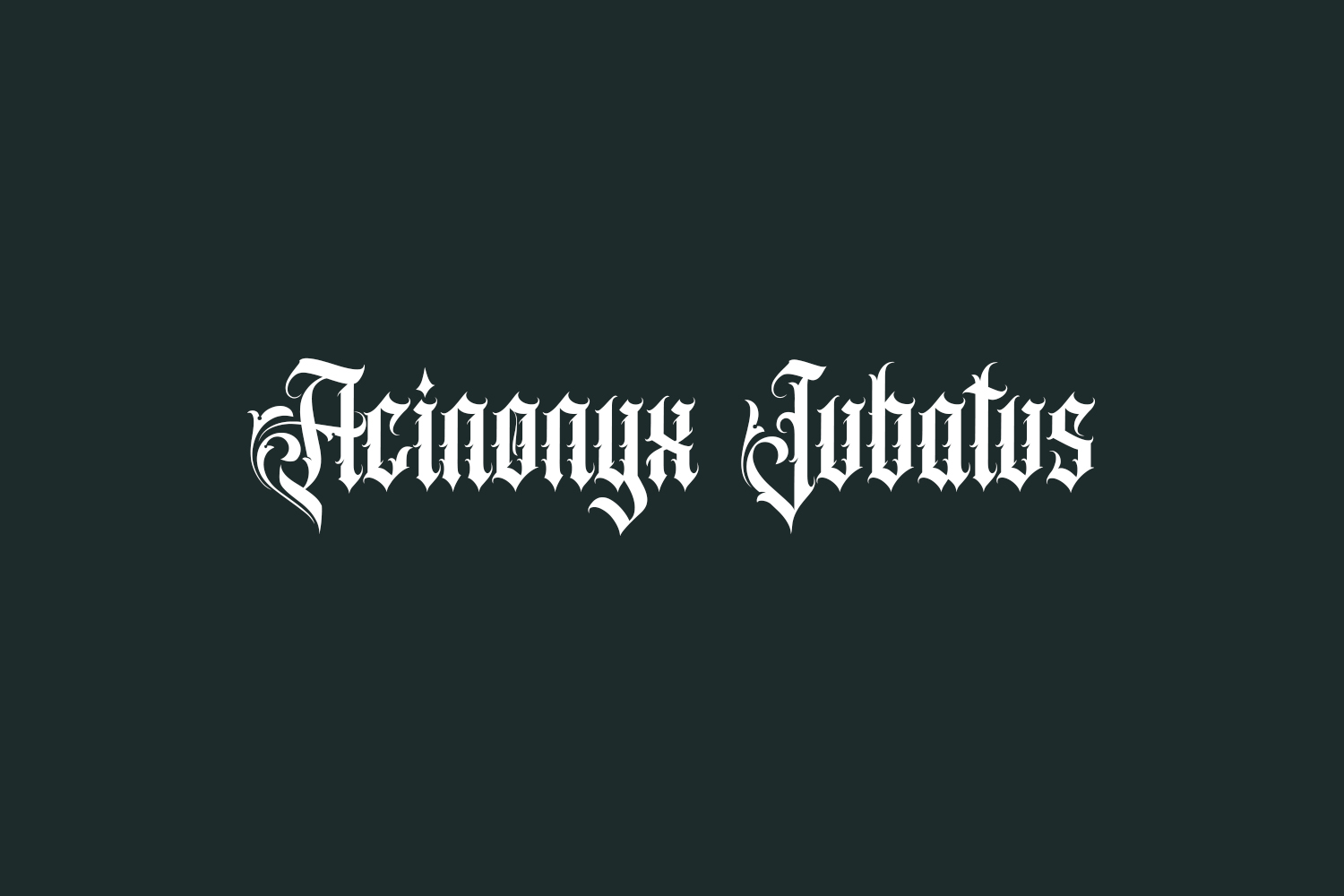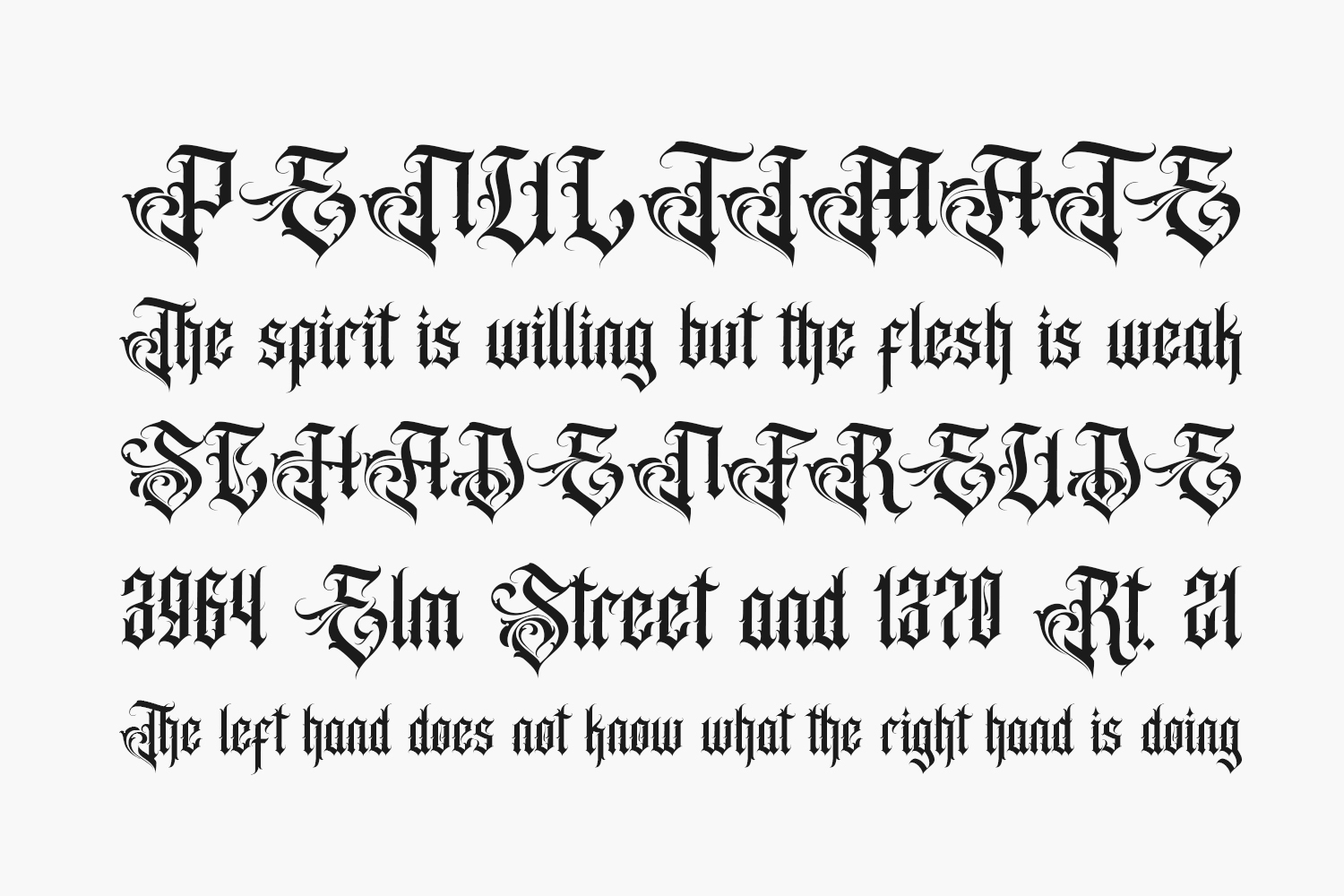
Acinonyx Jubatus Free Font is a modern and bold blackletter font. It features a dramatic look and it will most certainly elevate each of your designs. Acinonyx Jubatus Free Font is free for personal use only. Please purchase the full version for commercial use.
Designed by Ilhamtaro